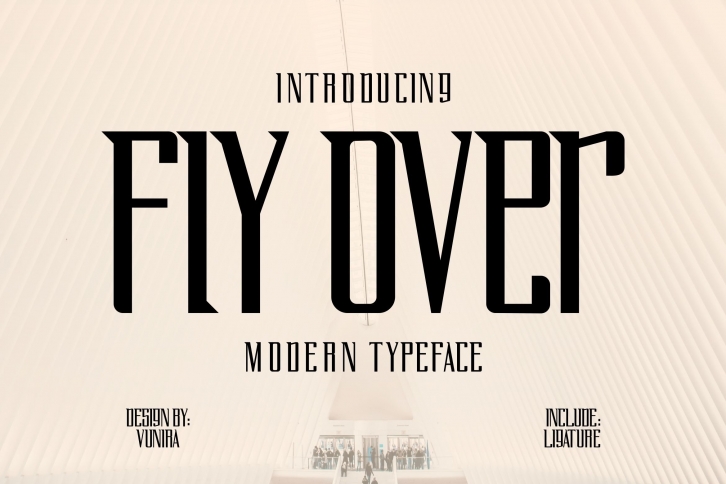
Fly Over is a beautiful font that was designed by Vunira. It's a great choice for designers and creatives who need such a font. It was released on July 28, 2020 and the file size is 8.66 MB. Fly Over may give a more youthful, expressive and casual look to your project. It is a very beautiful, refined, elegant, and high-quality font.